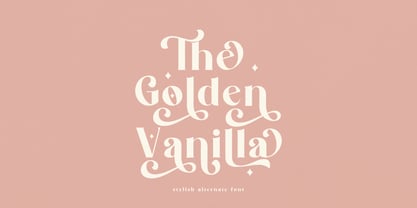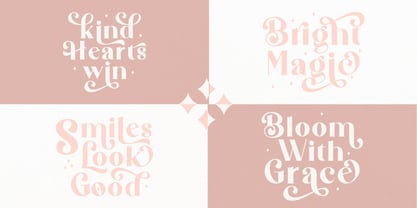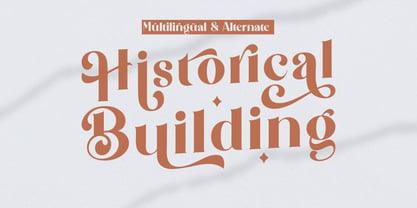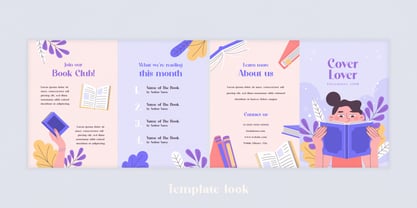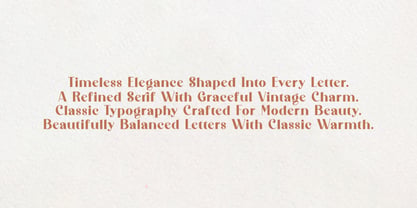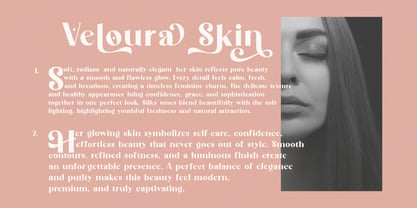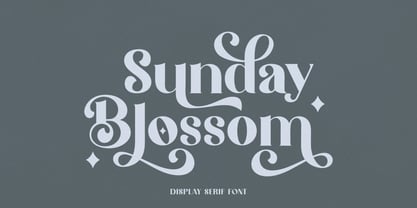
Thick Block
The Thick Block Font Family was designed by Md Masud Rana and published by MaxArt. Thick Block contains 1 styles. More about this family
Thick Block is a bold and elegant modern Display serif font crafted to make a powerful visual statement. Combining high-contrast serif details with artistic curves and luxurious alternates, this typeface delivers a sophisticated personality that feels both timeless and fashion-forward.
Designed with stylish ligatures and 76+ beautiful alternates, Thick Block offers endless creative possibilities for branding, logos, editorials, packaging, wedding designs, social media, beauty products, magazines, and premium typography projects. Every character is carefully shaped to create a dramatic and memorable appearance with refined elegance.